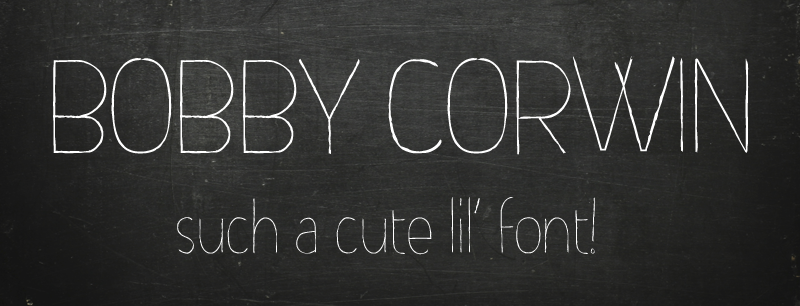
The cutest little freakin' font you will every lay your itty bitty eyes on. Bobby Corwin was born of love and tenderness. This somewhat light, somewhat handwritten font is tailored to suit the most adorable of projects. Bobby Corwin contains a full letter and number set, punctuation, and foreign characters, meaning you can be a little darling in whatever language you'd like :) ----------------------- This font is totally free. Please use this font however you see fit, personally or commercially. All I ask is that you share the love! ----------------------- Check out my new Font Blog to stay up to see when I release new fonts! http://michaelmuranaka.com ----------------------- Please DO NOT download this font and redistribute it on another website!!! This is free to do with whatever you wish, personal or commercial. YOU MAY NOT claim ownership of the font, sell it, or redistribute it. For more information see: http://michaelmuranaka.com/font-licensing-agreement-2/ It might be cool if you use the font to either credit Michael Muranaka, or show me how you used it! Enjoy! |